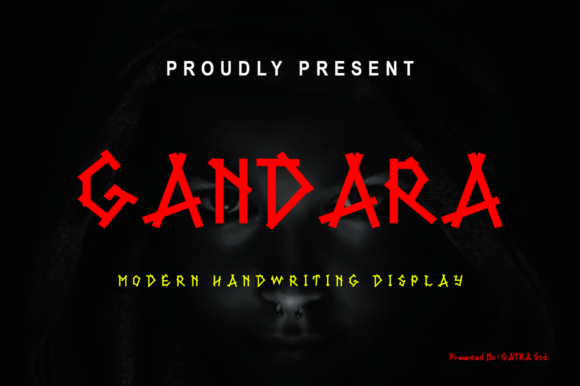
Unleash your creativity with Gandara Font, the ultimate display font designed to captivate and mesmerize. Immerse yourself in the world of haunting elegance, where every letter dances with a unique charm that will make your designs stand out from the crowd.
With its sharp edges and striking curves, Gandara embodies a fusion of modernity and vintage appeal. Crafted with meticulous attention to detail, each glyph carries a story of its own, ready to transport your designs into a realm of enchantment.
Explore the boundless possibilities of Gandara, a font that defies conventions and pushes the boundaries of creativity. From posters that speak volumes to flyers that grab attention, Gandara is the perfect companion for any design project that demands a touch of sophistication and a hint of the extraordinary.
Feel the thrill as your designs come to life with Gandara. Let your imagination soar as you weave captivating stories through every word and phrase. Whether you're conjuring up posters for Halloween events, crafting invitations for themed parties, or creating flyers for local haunts, Gandara will elevate your designs to new heights.
Don't settle for ordinary fonts that blend into the background. Embrace the power of Gandara and watch as your designs transform into mesmerizing works of art. Unleash the magic within and let Gandara ignite your creative spark.